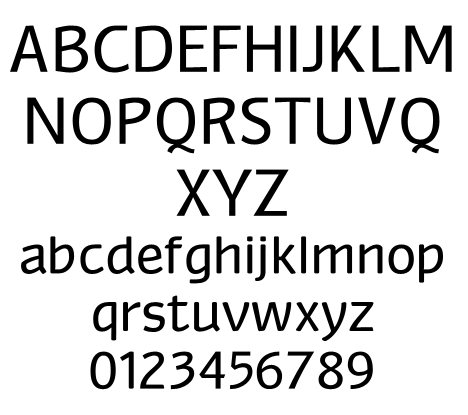
In case you haven’t noticed, I’m a sucker for fonts. Here’s another good one you shouldn’t miss – Myndraine by Christopher Miller. Not only is it decent looking and clean, Myndraine is a pretty robust font, with tons of extra characters and uncommon glyphs. The download includes both .ttf (true type) and .otf (open type) formats! You may not have a use for this font now, but I always like to keep them in the bag for later. I can picture this font used in a website/blog logo. Also, if you are a font junkie and a BittBox regular, you will notice that “Fonts” is the latest addition to the categories. (p.s. More additions/features coming very soon ;)
Here’s a quick look at the character set: